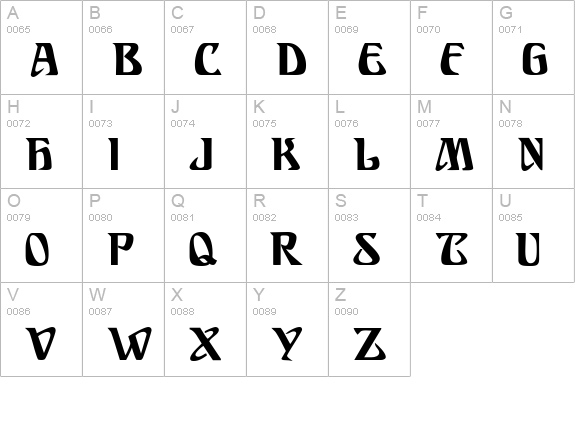
SundraDisplayCaps Bold Font Details
SundraDisplayCaps Bold is a strong, high-contrast variant in the SundraDisplayCaps typeface family \xE2\x80\x94 well suited to headlines, attention-grabbing titles, and strong calls-to-action.
SundraDisplayCaps Bold font is a striking and eye-catching display typeface that commands attention with its bold and assertive presence. Its clean lines and sharp edges make it perfect for headlines, titles, and other prominent design elements. The font exudes a sense of confidence and modernity, making it ideal for projects that require a strong and impactful visual identity. The best part? SundraDisplayCaps Bold font is available for free download at FontsMarket.com. This means you can easily access this powerful font and incorporate it into your designs without any cost. Whether you're working on a branding project, advertising campaign, or any other creative endeavor, SundraDisplayCaps Bold font is a versatile and reliable choice that will help your designs stand out. Download SundraDisplayCaps Bold font for free today and elevate your design projects with its bold and captivating style.